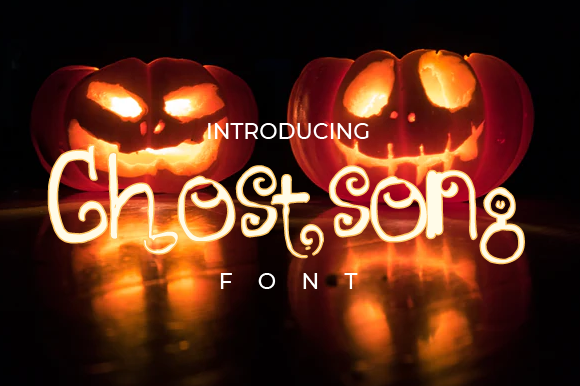
Ghost Song Font
About Ghost Song Font
Ghost Song embodies fun, quirkiness and authenticity. This enchanting handwritten font will turn any creative idea into a true standout.